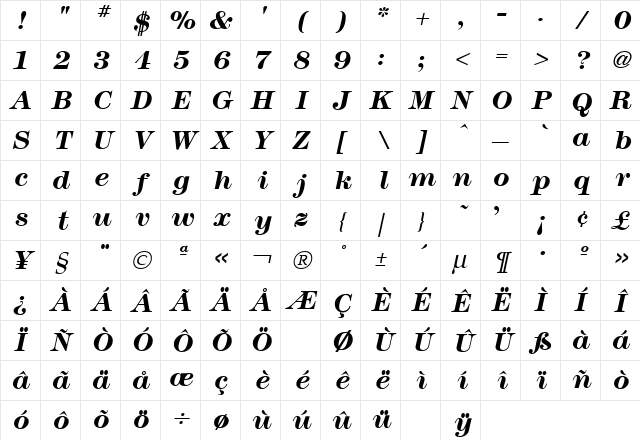
Modern No. 216 Bold Italic
Design Context for Modern No. 216
Modern No. 216 is a composed and adaptable typeface that performs quietly and consistently across a wide range of design contexts. The slanted form adds forward momentum and visual energy. Its bold stroke weight gives it real presence on the page.
Pro Tip: Use Modern No. 216 for emphasis, pull quotes, and subheadings where its slanted energy can add rhythm to the layout.